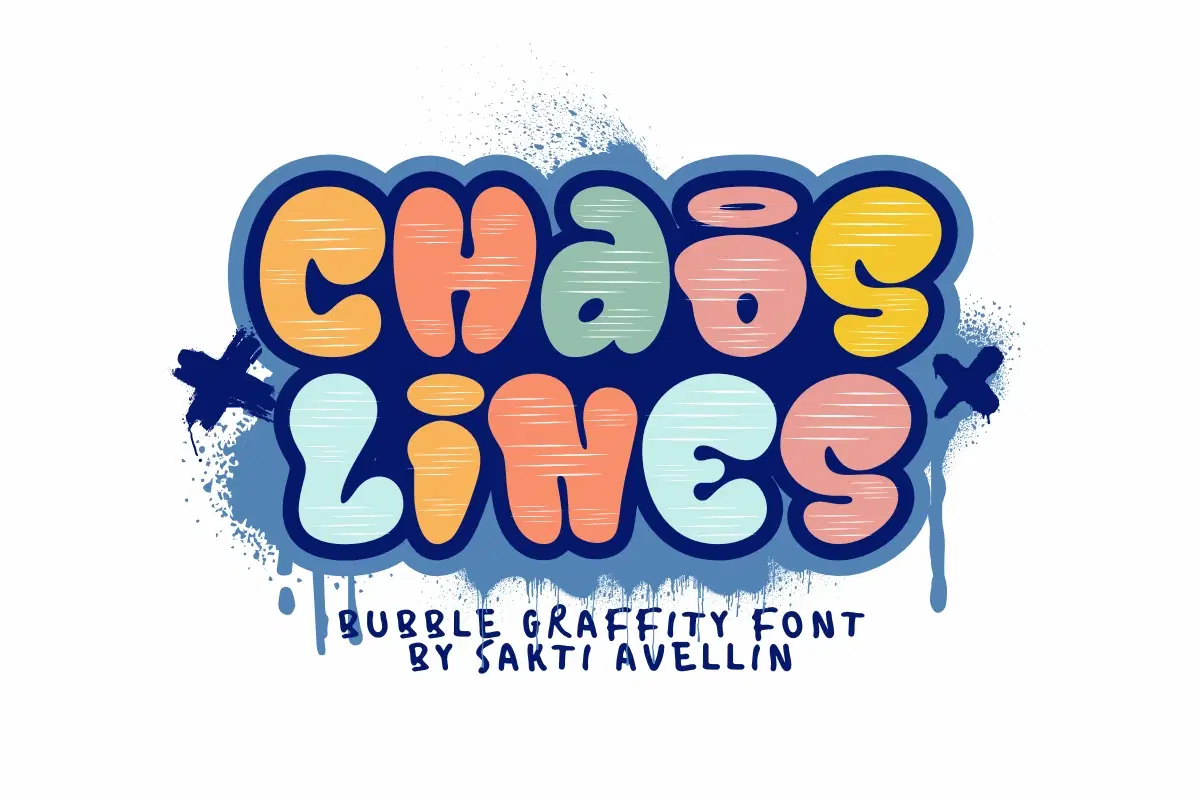
Chaos Lines is an energetic, bold, and incredibly stylish bubble graffiti font designed to bring authentic street art vibes to your creative projects. This urban display font features rounded, bubbly letterforms characterized by unique internal sketchy lines, making it essential for streetwear branding, edgy sticker designs, hip-hop posters, music album covers, and vibrant social media graphics. Its high-impact, thick style ensures it stands out as a powerful graffiti typeface for headlines and apparel, appealing to a modern audience that loves rebellious, youthful, and handcrafted aesthetics. Add a touch of raw urban energy and underground cool to your work with this distinctive hand-drawn graffiti font!